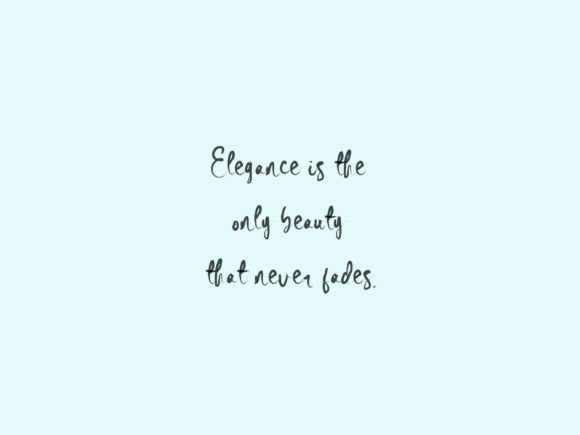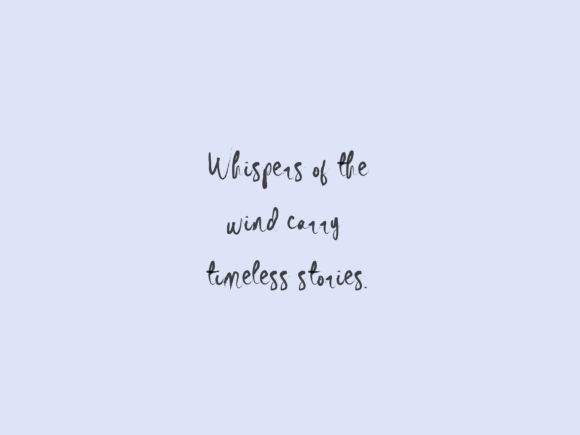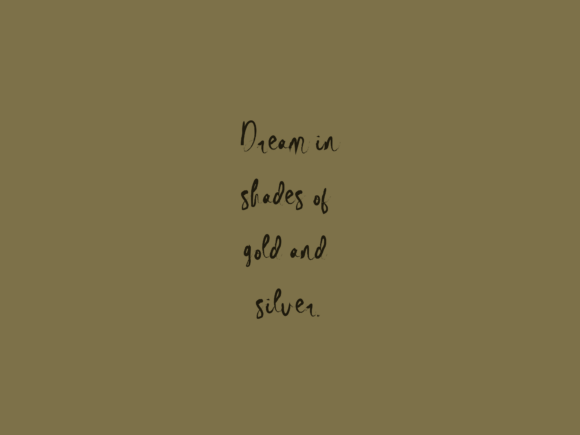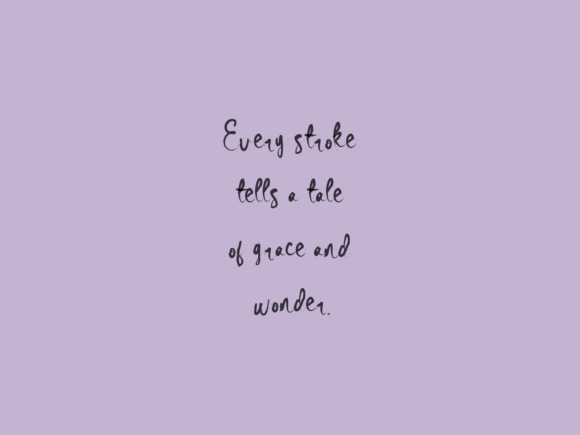
Unleash the Spooky Charm with Ghostly Font: Elevate Your Designs with a Touch of Elegance
Are you tired of using the same old fonts in your designs? Do you want to add a touch of individualism and creativity to your projects? Look no further than Ghostly, an expertly designed, eerily delightful font that boasts a distinctive hand-lettered script. This stylish cursive gem is perfect for designers and crafters who want to make their work stand out from the crowd.
The Story Behind Ghostly
Ghostly is more than just a font – it’s a statement piece. Its unique, hand-lettered design makes it perfect for a variety of projects, from Halloween decorations to gift cards, signatures, and planners. The font’s creator has carefully crafted each letter to ensure that it is not only visually appealing but also highly legible. Whether you’re a professional designer or a DIY enthusiast, Ghostly is sure to become your go-to font for adding a touch of elegance and sophistication to your work.
What Makes Ghostly So Special?
So, what sets Ghostly apart from other fonts on the market? Here are just a few reasons why this font is a cut above the rest:
- Distinctive Hand-Lettered Script: Ghostly boasts a beautiful, hand-lettered script that is sure to add a touch of personality to your designs.
- Highly Legible: Despite its unique design, Ghostly is highly legible, making it perfect for use in a variety of projects, from body text to headings.
- Versatile: Ghostly is a versatile font that can be used in a wide range of projects, from Halloween decorations to gift cards, signatures, and planners.
- Elegant and Sophisticated: Ghostly adds a touch of elegance and sophistication to any design, making it perfect for crafters and designers who want to create high-end looking work.
Use Cases for Ghostly
So, how can you use Ghostly in your designs? Here are just a few ideas to get you started:
- Halloween Decorations: Add a touch of spooky charm to your Halloween decorations with Ghostly. Use it to create creepy invitations, decorations, and other Halloween-themed projects.
- Gift Cards: Add a touch of elegance and sophistication to your gift cards with Ghostly. Perfect for special occasions like birthdays, holidays, and anniversaries.
- Signatures: Use Ghostly to add a touch of personality to your signatures. Perfect for crafters, artists, and designers who want to make their mark.
- Planners and Note-Taking: Add a touch of visual refinement to your planners and note-taking with Ghostly. Perfect for bullet journalists, planners, and anyone who loves to stay organized.
Tips for Using Ghostly
Here are a few tips for getting the most out of Ghostly:
- Experiment with Different Sizes: Ghostly looks great in a variety of sizes, from small and delicate to large and bold. Experiment with different sizes to find the one that works best for your project.
- Pair it with Other Fonts: Ghostly pairs well with a variety of other fonts. Try pairing it with a bold sans-serif font for a striking contrast.
- Use it to Add Emphasis: Use Ghostly to add emphasis to certain words or phrases in your design. Its unique design makes it perfect for drawing attention.
In conclusion, Ghostly is a unique and versatile font that is perfect for designers and crafters who want to add a touch of individualism and creativity to their work. Its distinctive hand-lettered script, highly legible design, and elegant and sophisticated style make it perfect for a wide range of projects. Whether you’re creating Halloween decorations, gift cards, signatures, or planners, Ghostly is sure to become your go-to font. So why wait? Download Ghostly today and unleash the spooky charm in your designs!